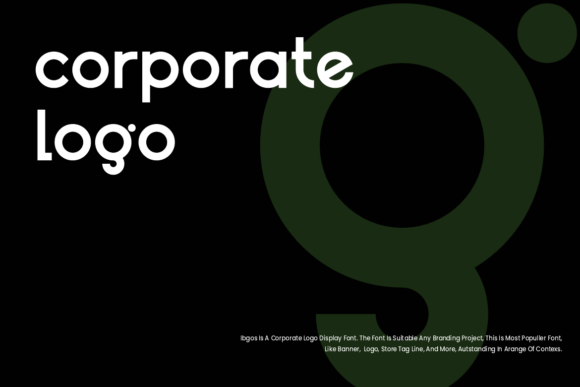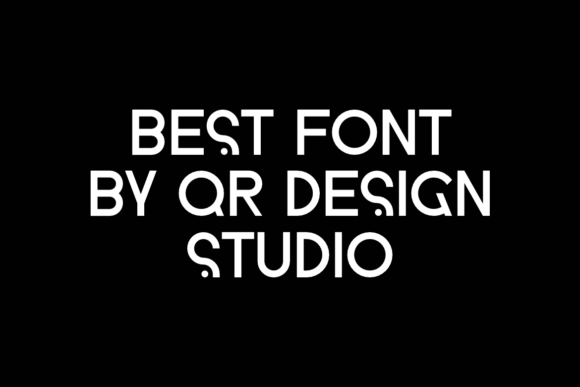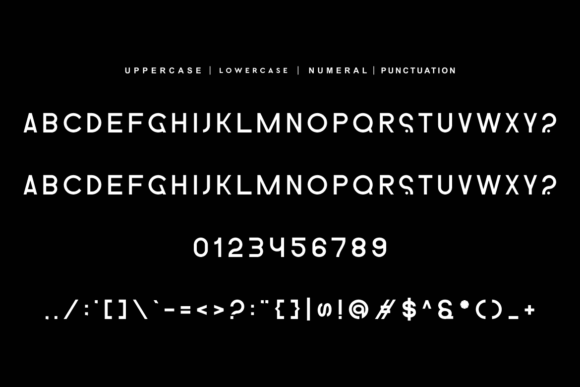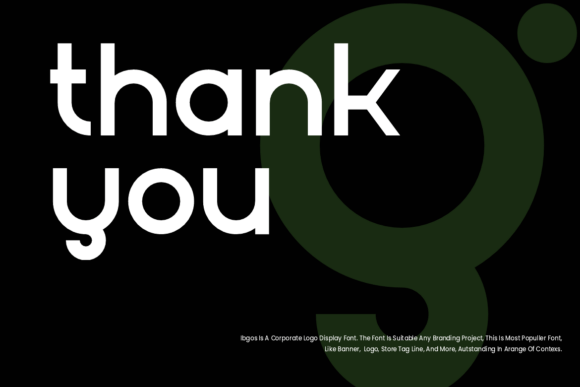
Introduction to Ibgos Font
iBgos is a sleek and modern sans serif typeface designed specifically for branding, logos, and professional visual identities.
With its minimal geometry and subtle futuristic touch, iBgos offers clarity, confidence, and versatility for everything from tech startups to high-end corporate presentations .
Key Features of Ibgos Font
Why Choose Ibgos Font?
Ibgos Font offers exceptional quality and versatility, making it a valuable addition to your design toolkit. Whether you’re creating for personal projects or commercial use, Ibgos Font delivers professional results.